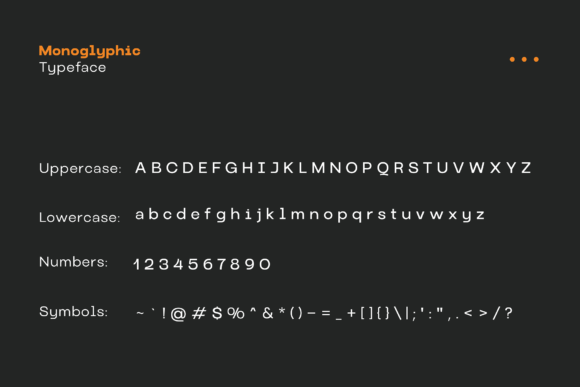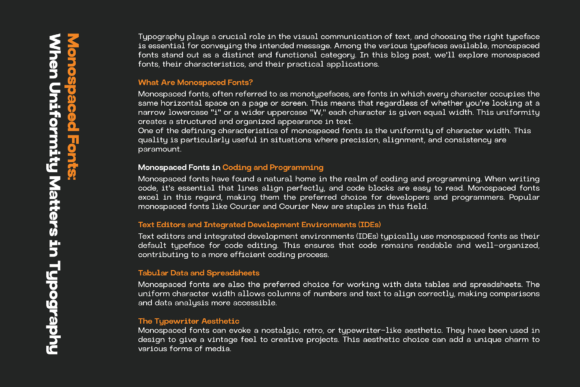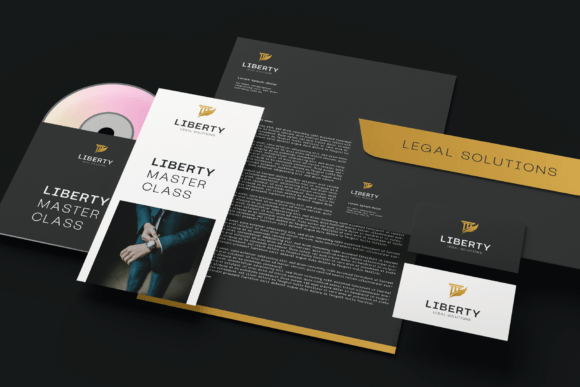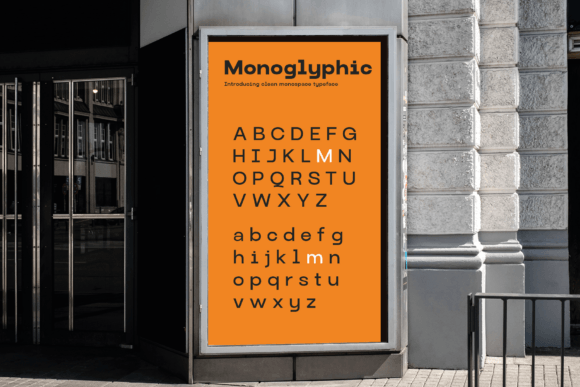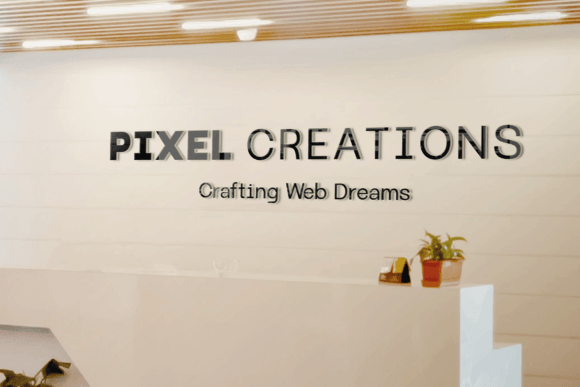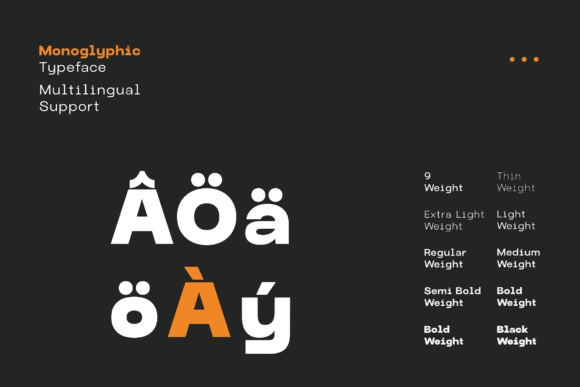
Introduction to Monoglyphic Font Font
Fonts play a crucial role in design, and the Monoglyphic Font font is a typeface that brings both character and versatility to any project. Whether you’re working on a branding project, a website, or a print design, the Monoglyphic Font font offers a unique style that can elevate your work.
Introducing Monoglyphic, the epitome of clarity in a world of design chaos.
Crafted with meticulous attention to detail, this monospace typeface marries simplicity with sophistication, offering a clean and consistent look thatβs perfect for both design aficionados and minimalist enthusiasts Every character stands in harmonious alignment, ensuring your content is not only readable but also aesthetically pleasing.
Key Features of Monoglyphic Font Font
Why Choose Monoglyphic Font Font?
The Monoglyphic Font font is more than just a typeface β it’s a design tool that helps you communicate your message with style and clarity. Its unique character set and versatile design make it suitable for a wide range of applications, from elegant invitations to bold headlines.
With its carefully crafted letterforms and balanced proportions, the Monoglyphic Font font ensures readability and visual appeal across all mediums.
What makes Monoglyphic Font font special?
The Monoglyphic Font font stands out with its unique design, exceptional readability, and versatility across various design applications.